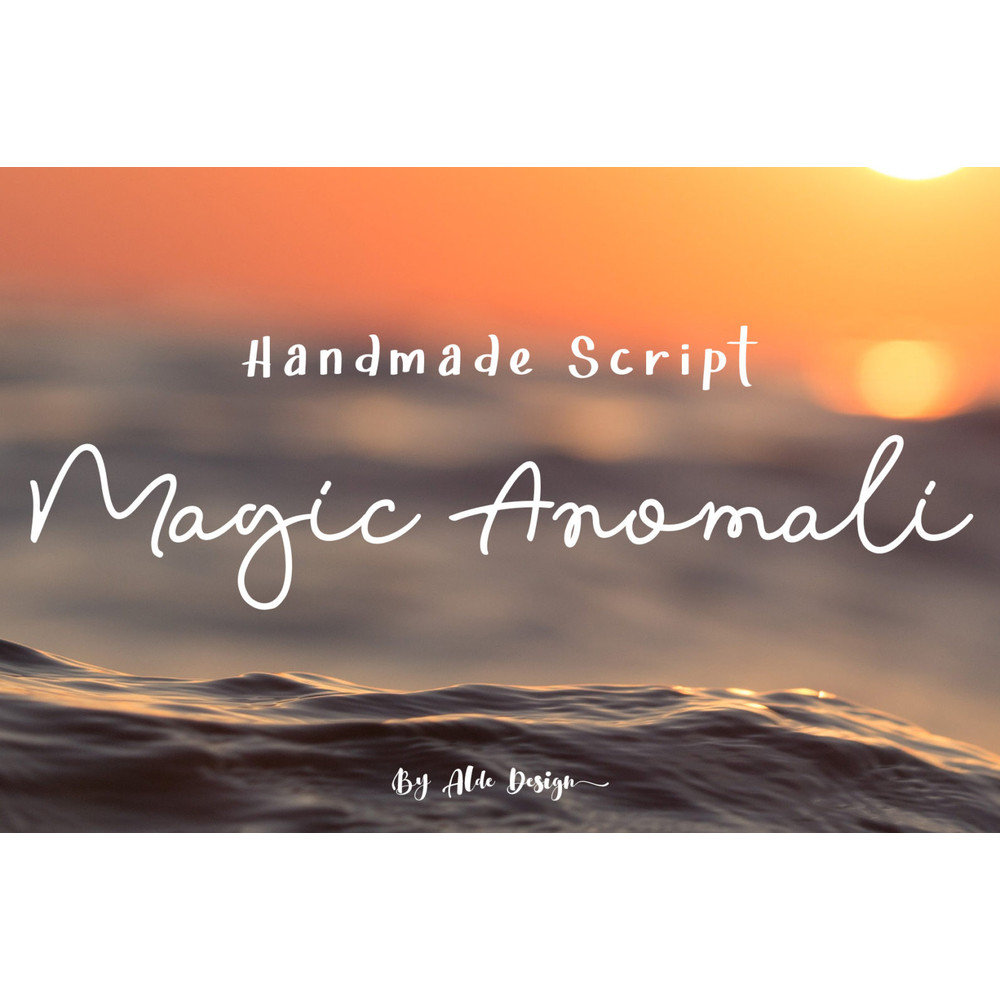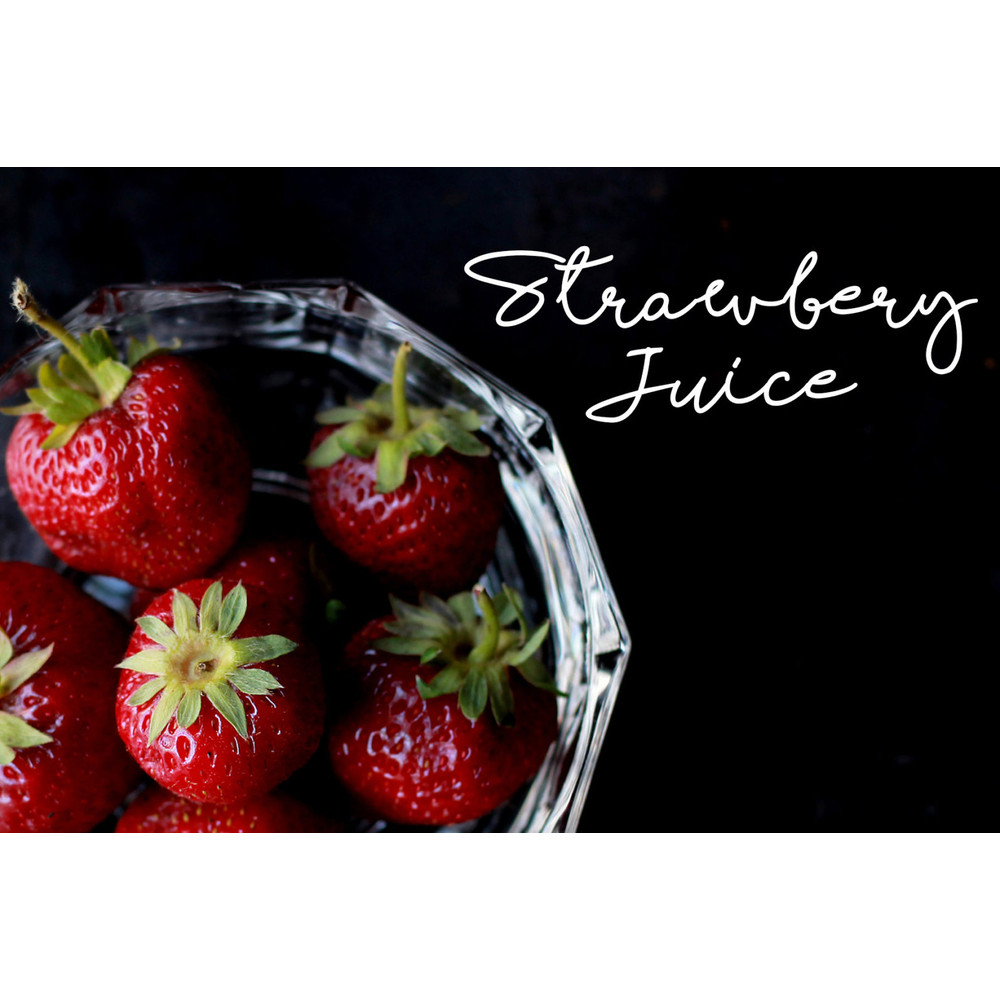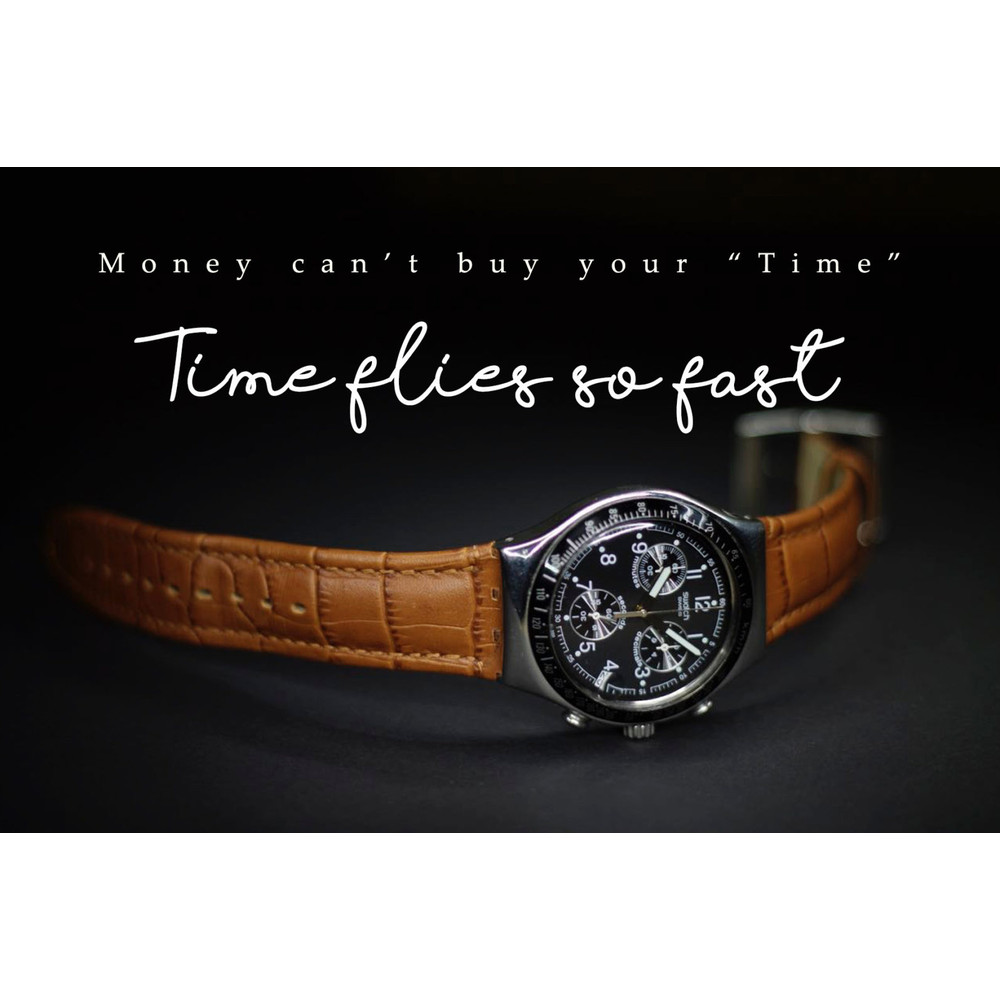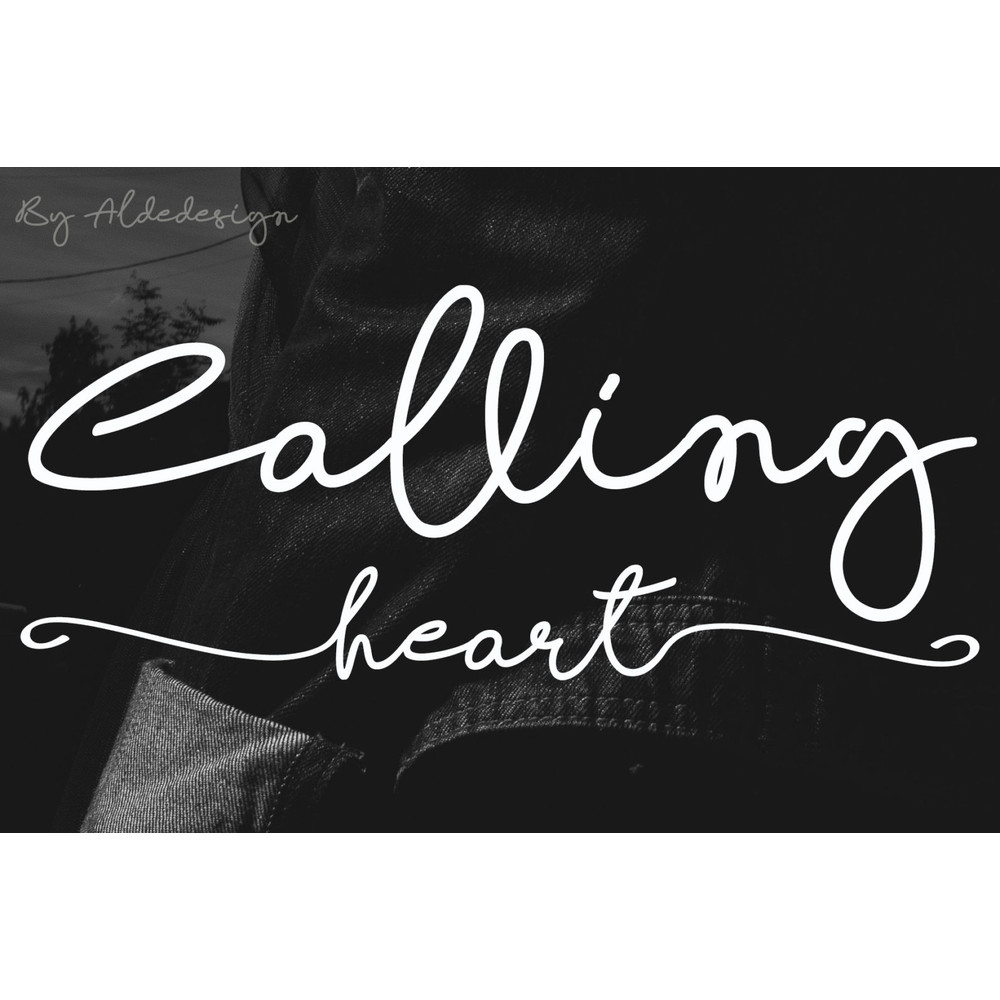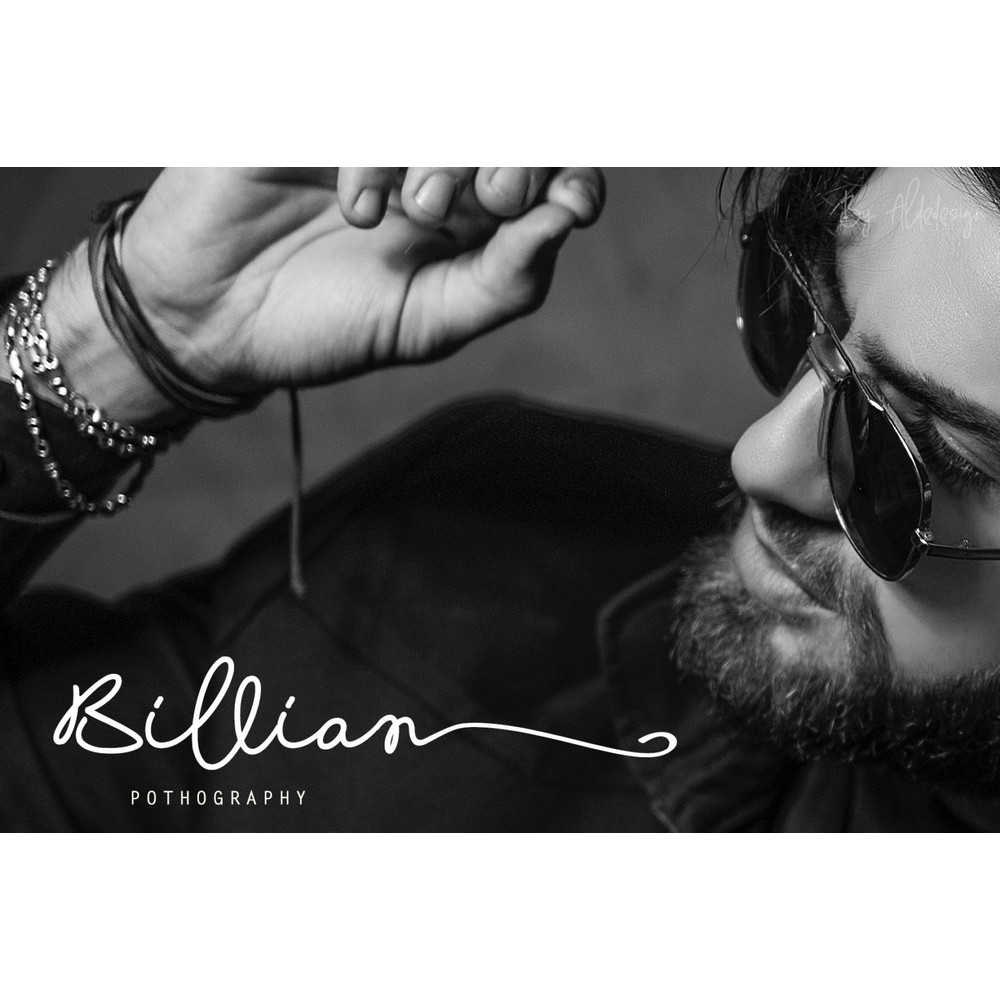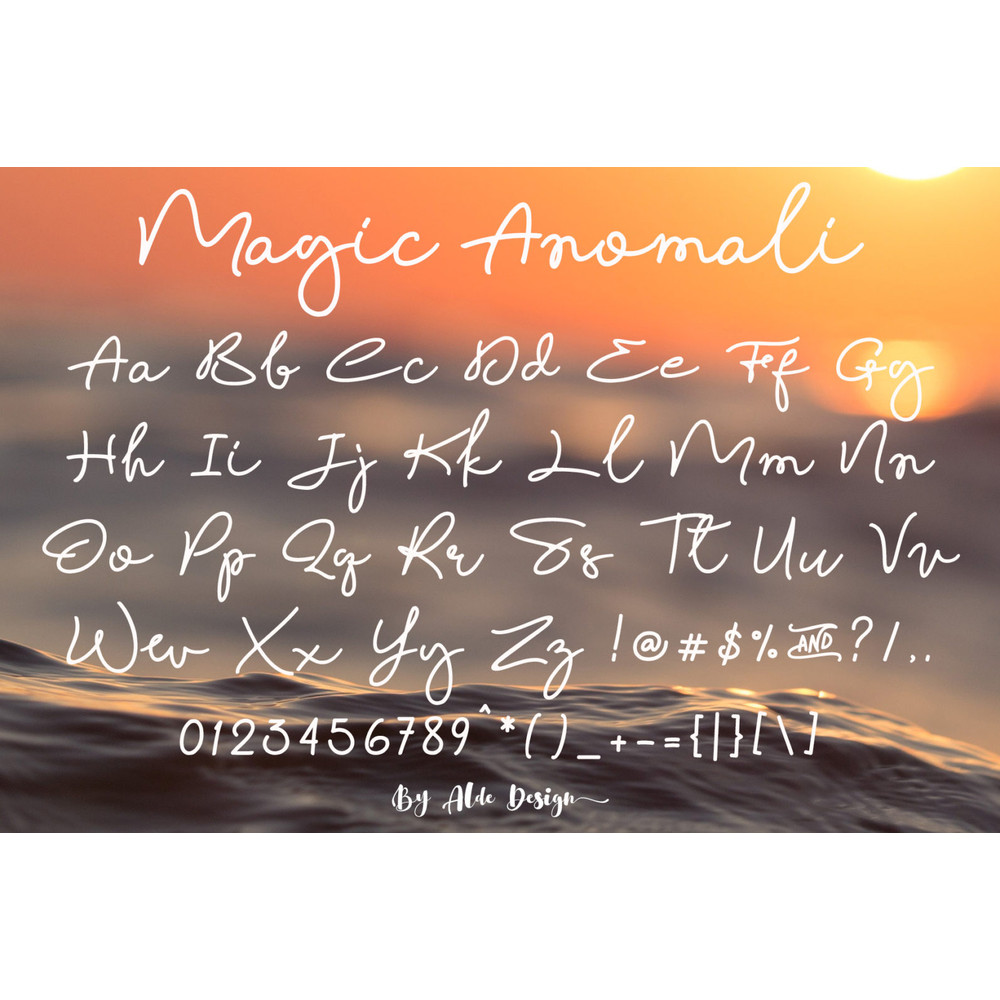
Magic Anomali Trending Fonts - Digital Font
Magic Anomali is a font with awesome and classy taste, comes with a natural touch, so many ligatures. We keep this font looks classy, readable, elegant, stylish, catchy, and absolutely easy to use.
Magic Anomali is a great choice for the watermark on branding, design, wedding, photography, signature, logo design, album cover, business card, quotes, and much another design project.
-Stylish handwritten style